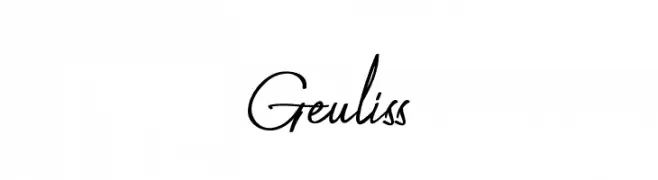
An elegant and sophisticated cursive font with high contrast and ornate details.
A dynamic, italicized script font with elegant, flowing strokes.
An elegant, flowing script font with smooth, cursive strokes.
A sophisticated script font with elegant, flowing letterforms.
A lively, expressive script font with fluid, cursive strokes.
A fluid and elegant script font with dynamic letterforms.